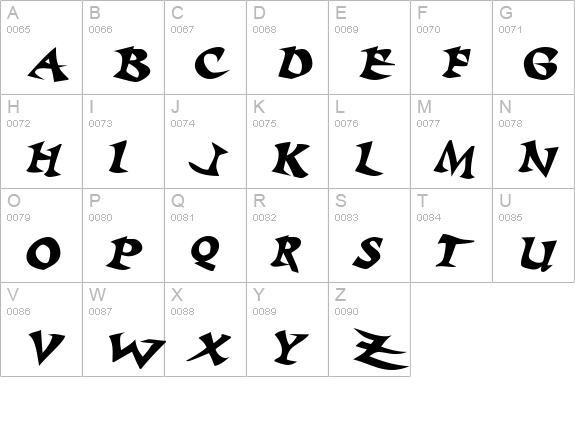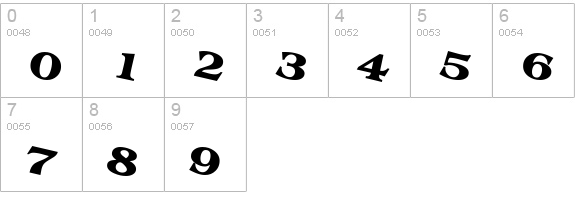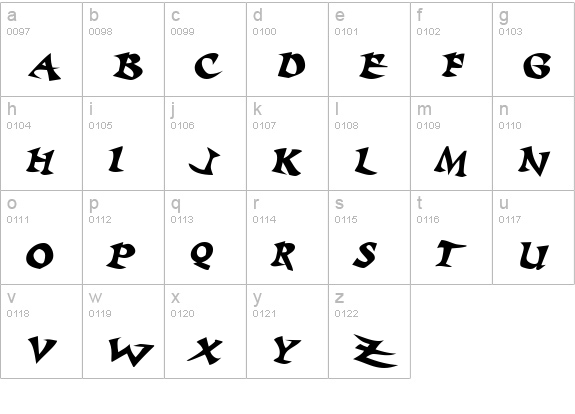
Baratz Bold Italic Font Details
Baratz Bold Italic is a strong, high-contrast, italic variant in the Baratz typeface family \xE2\x80\x94 well suited to headlines, attention-grabbing titles, and strong calls-to-action.
Baratz Bold Italic is a striking and versatile typeface that exudes elegance and sophistication. Its bold strokes and italicized design make it perfect for adding a touch of glamour to any project. The Baratz Bold Italic font is ideal for headlines, titles, and branding materials that demand attention and make a bold statement. The best part about Baratz Bold Italic font is that it is available for free download at FontsMarket.com. This means you can easily access this beautiful font to enhance your designs without any cost. Whether you are working on a professional project or a personal one, Baratz Bold Italic font will elevate your typography game and give your work a polished and stylish look. Don't miss out on the opportunity to download this exceptional font for free and take your designs to the next level.